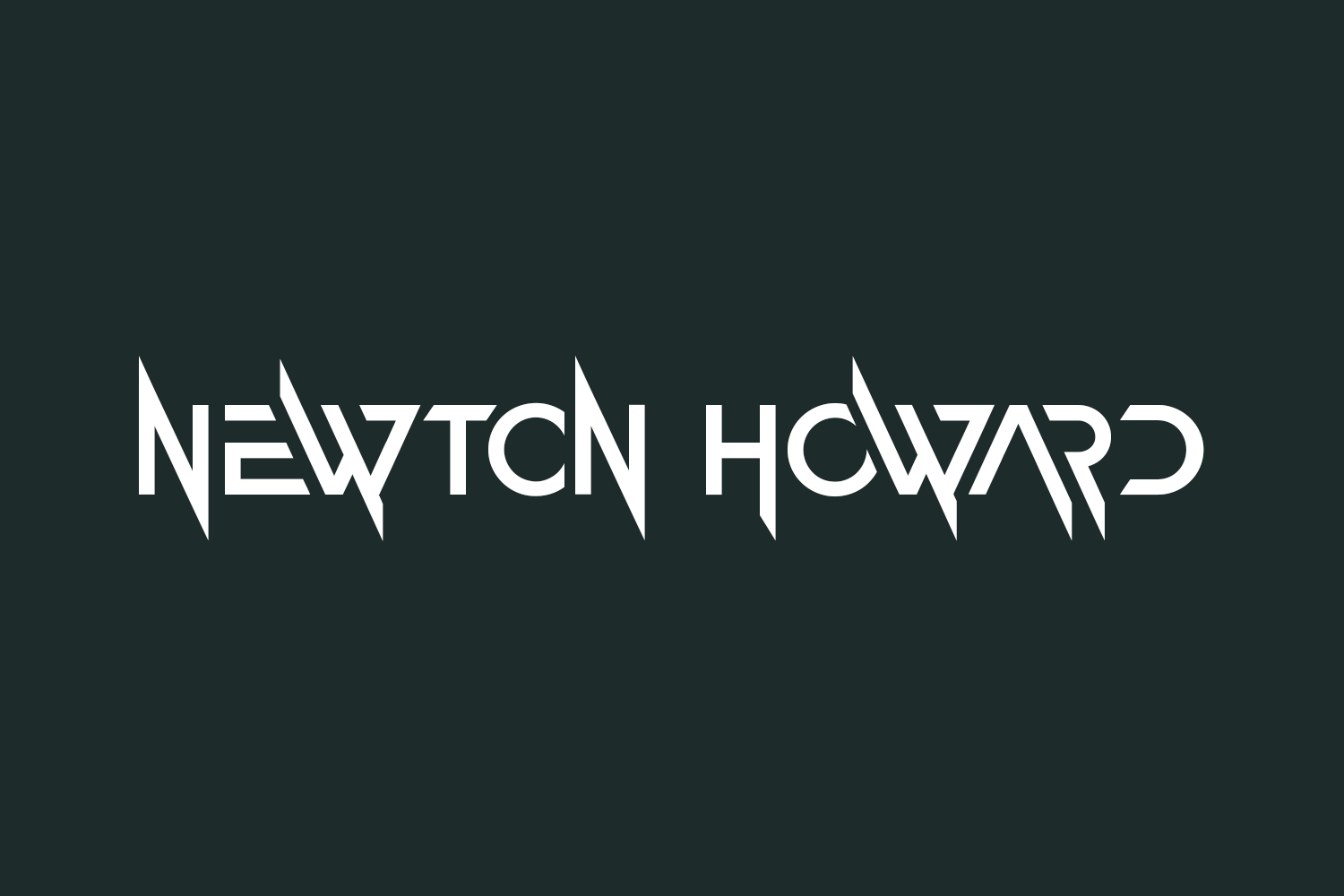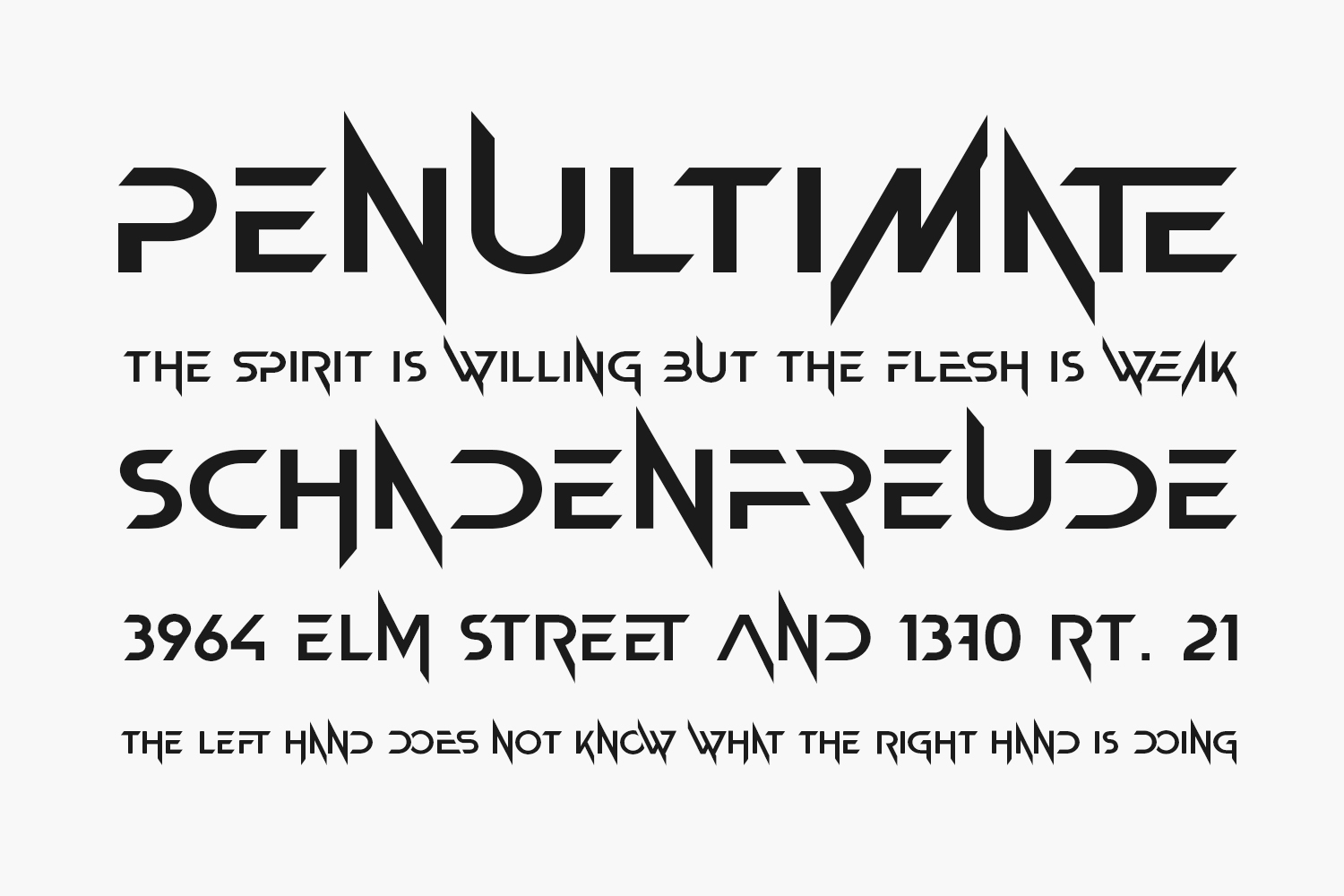
Newton Howard Free Font Family is a cool, bold, and geometrically shaped display font. This font would be ideal for writing web designs, business cards, or pretty much anything else that requires a unique touch. Newton Howard Free Font Family was designed by 177Studio and is free for personal use only. Please purchase the full version for commercial use.
Newton Howard Regular The quick brown fox jumps over the lazy dog
Newton Howard Italic The quick brown fox jumps over the lazy dog